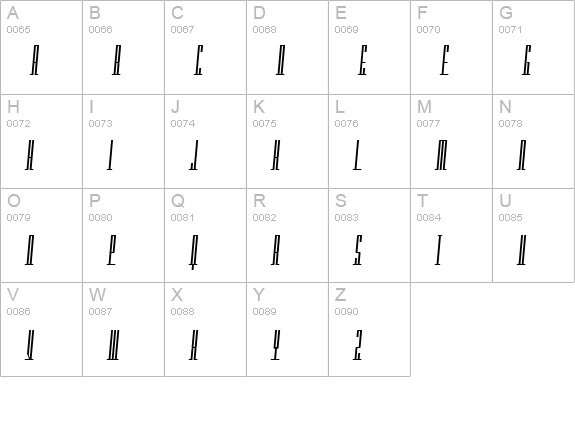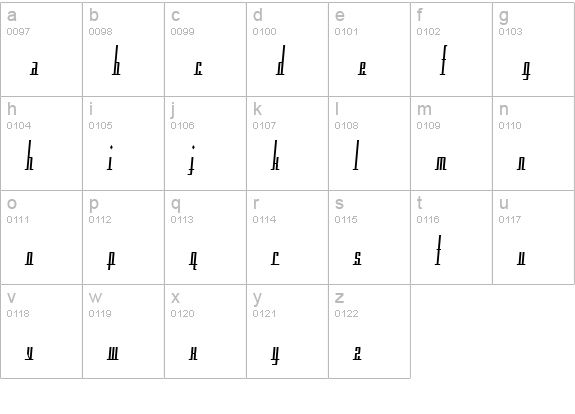
Americana Dreams Condensed Font Details
Americana Dreams Condensed is a distinctive, condensed-width variant in the Americana typeface family \xE2\x80\x94 well suited to design and typography projects.
Americana Dreams Condensed is a versatile and nostalgic font that embodies the essence of classic Americana design. Its condensed style brings a sleek and modern touch to any project, while still retaining a hint of vintage charm. With its clean lines and bold lettering, Americana Dreams Condensed is perfect for a wide range of design applications, from logos to packaging to headlines. This font is a must-have for designers looking to add a touch of Americana flair to their projects. The best part? Americana Dreams Condensed is available for free download at FontsMarket.com. Whether you're working on a branding project or creating a poster for an event, this font is sure to make a statement and capture the spirit of American design. Download Americana Dreams Condensed today and bring a piece of Americana nostalgia to your next design project.